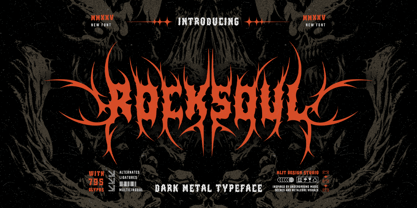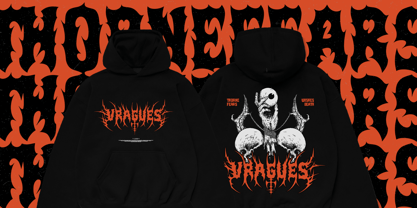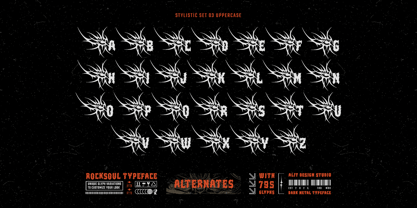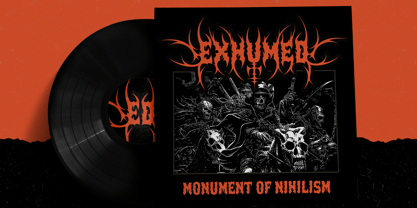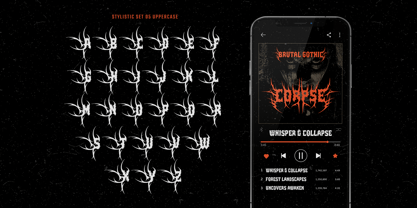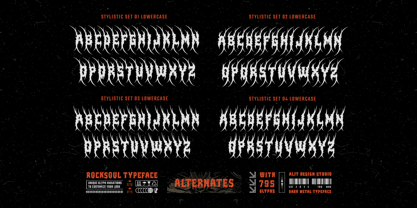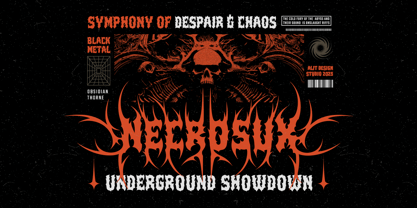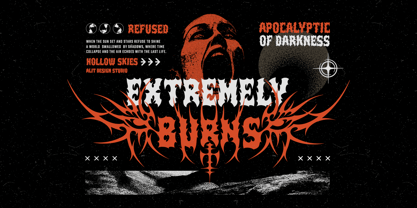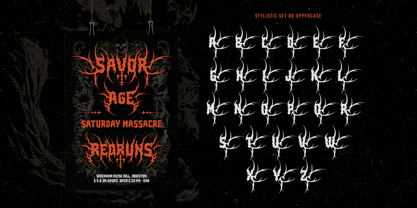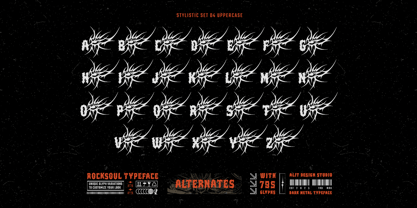
Rocksoul
💀 Rocksoul Typeface — A Dark Metal Font Born for the Underground
Unveil the raw power of Rocksoul Typeface — a brutal, high-impact display font forged for the world of underground music, extreme visuals, and fearless design. Created to echo the spirit of heavy metal, hardcore, and metalcore culture, Rocksoul is more than just a typeface — it’s a statement.
This font embodies a fat-bodied structure merged with sharp, piercing thorn-like extensions, creating a fierce, aggressive impression at first glance. Each letter feels alive — shaped by the dark aesthetic of underground gig posters, rebellious band merchandise, and metal album art.
💡 Design Concept Rocksoul was born from the fusion of modern dark art and traditional metal typography. The spiky, thorn-wrapped forms mirror the wild energy of underground soundscapes, while the balanced, bold shapes ensure clarity and impact in any layout.
One of the standout features is the symmetrical alternates designed for the beginning, middle, and ending positions of a word. This clever symmetry allows for powerful, mirror-like text arrangements that feel structured, sharp, and harmonious, even amidst the chaos of sharp details.
• 795 Glyphs — An extensive set of characters to cover all creative needs, including alternates, ligatures, and symbols.
• Symmetrical Alternates — Unique alternate letterforms designed specifically for the first, middle, and last letter positions, ensuring visual balance across your text.
• Ligatures — Custom combinations for smooth, professional-looking connections between specific letter pairs.
• Multilingual Support — Supports multiple languages to help your message reach audiences across the globe.
🎸 Perfect For:
• Metal & Hardcore Band Logos
• Album Covers & Merch Design
• Dark-themed Branding
• Tattoo-Inspired Artwork
• Horror & Gothic Posters
• Streetwear and Alternative Fashion Labels
Whether you’re designing for the mosh pit, the dark web, or the street, Rocksoul Typeface arms your project with the attitude and edge it deserves.
The underground music scene, hardcore subculture, metalcore visuals, and the raw essence of rebellion. Every curve, spike, and shadow was crafted to bring out the wild, untamed energy of metal art — making Rocksoul not just a font, but a visual scream.
Dare to create. Dare to be loud. Dare to be bold.
Rocksoul Typeface is here to amplify your designs to a whole new level of savage beauty.